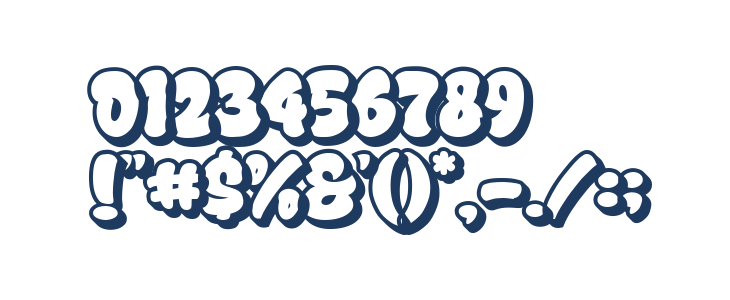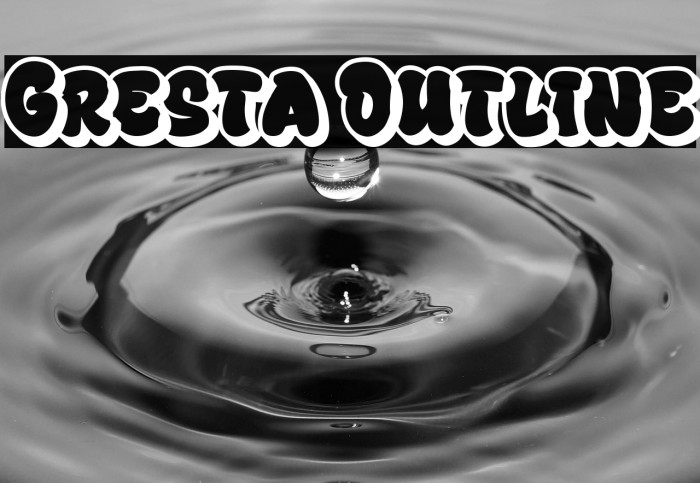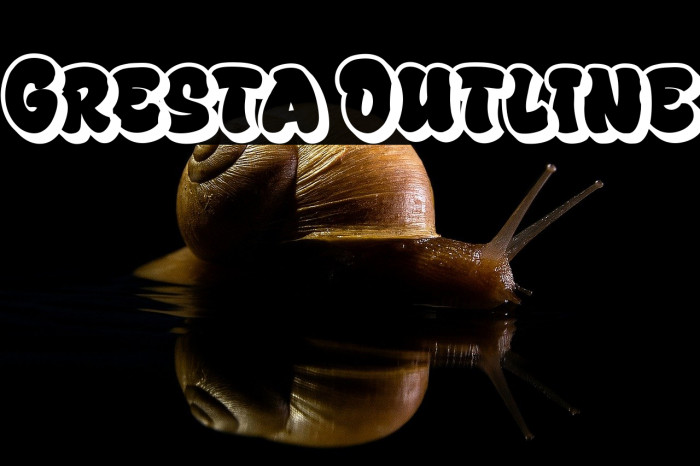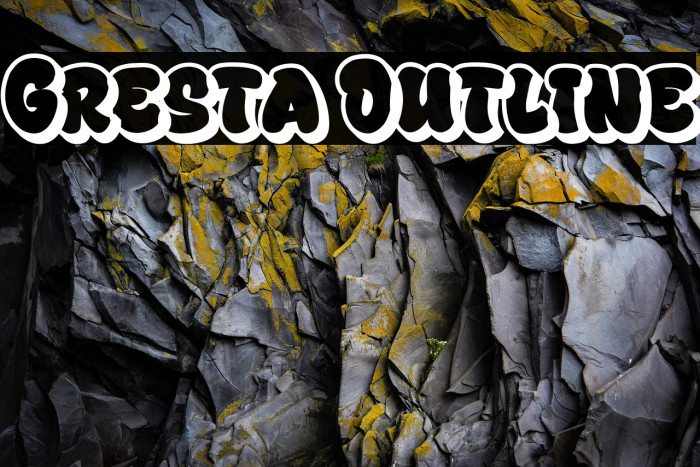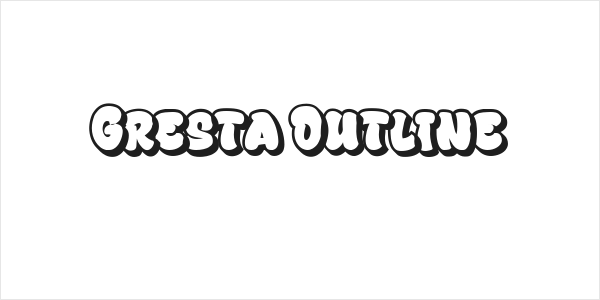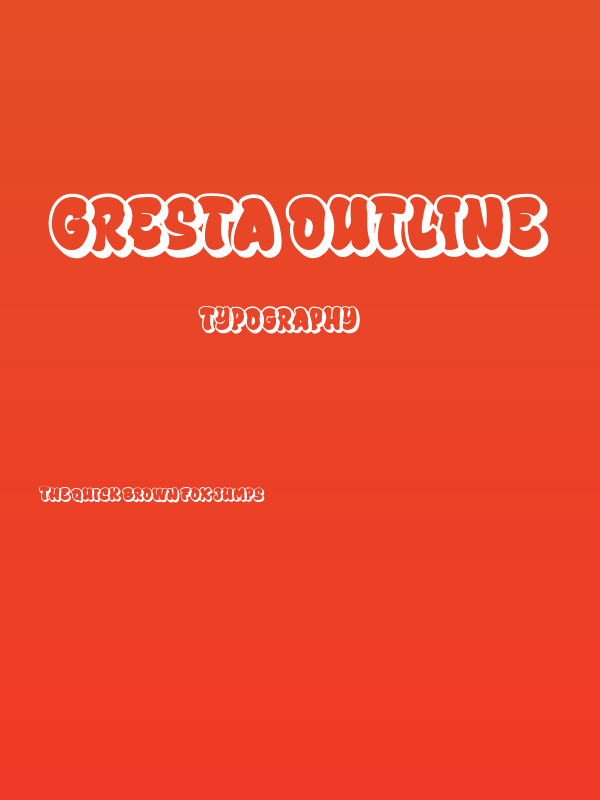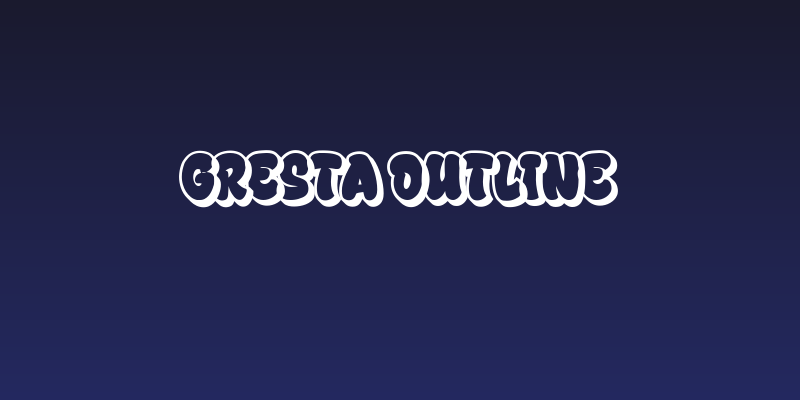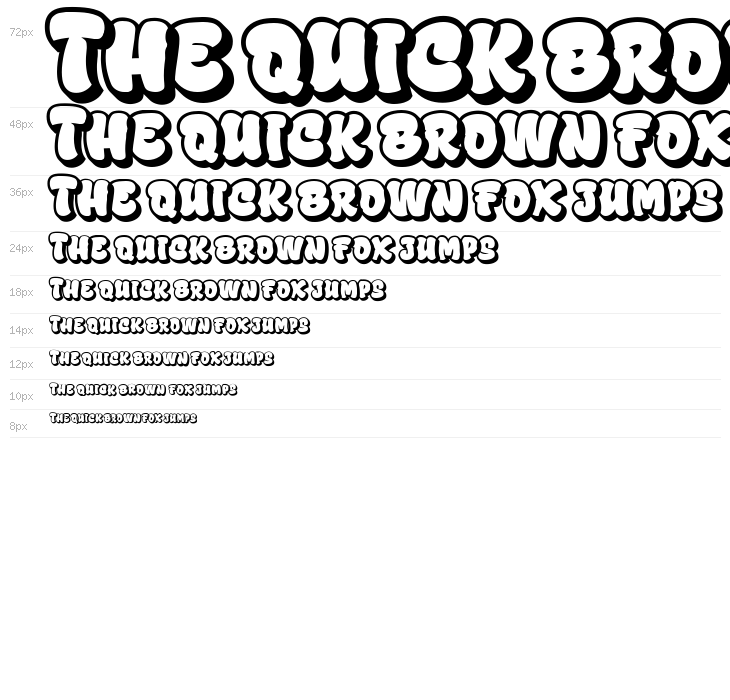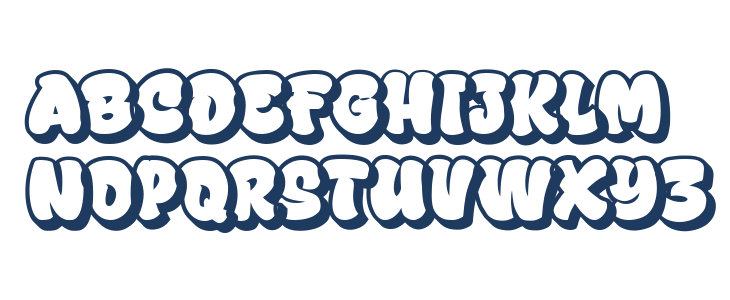
Gresta Outline Font
Gresta Outline Description
This playful and bold font features a thick, outlined style that gives it a cartoonish and vibrant appearance. The characters are rounded and bubbly, with a consistent thickness throughout each letterform. The outline adds a layer of depth, making the font stand out and appear almost three-dimensional. Its whimsical nature makes it ideal for projects that require a fun and engaging visual element. The font maintains a uniform weight across all characters, ensuring readability while still delivering a strong visual impact. The spacing between characters is tight, which enhances its bold and cohesive look.
| Overall Style | Playful, Cartoonish |
| Proposed Projects | Ideal for children's books, comic strips, playful branding, and event posters. |